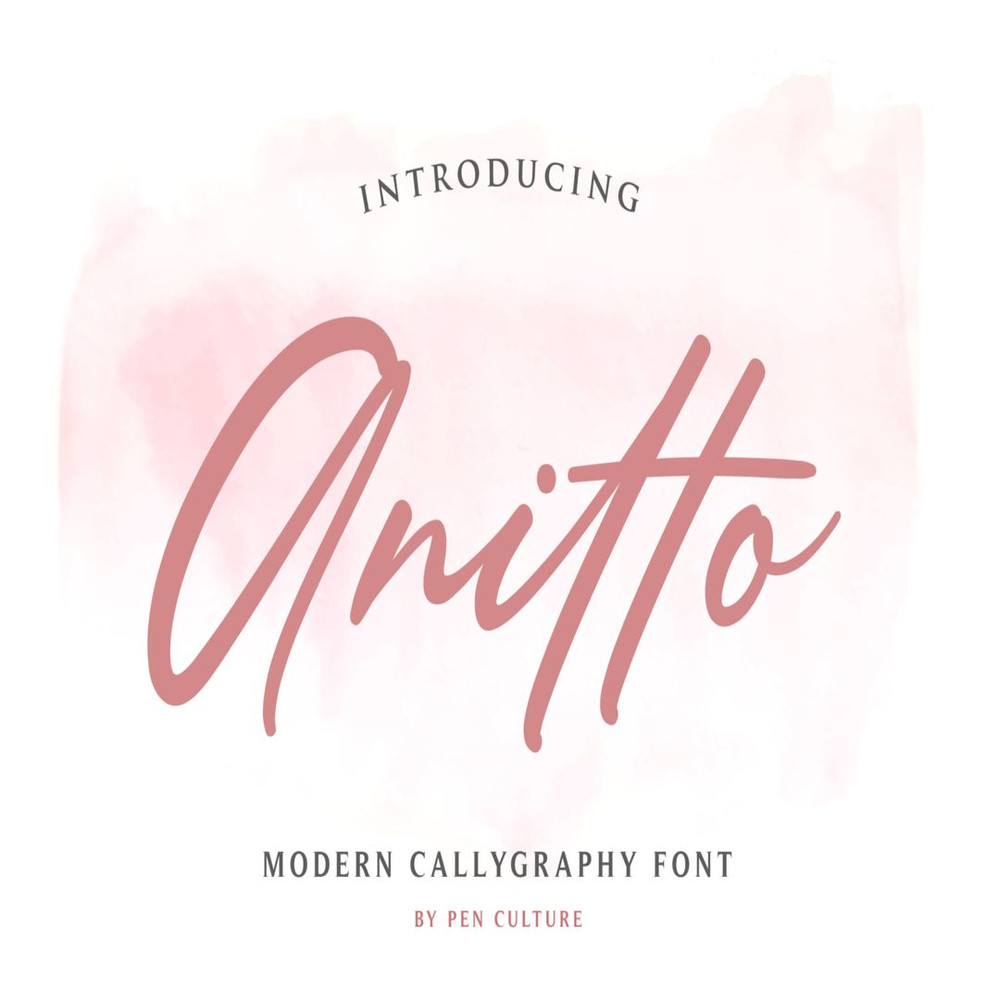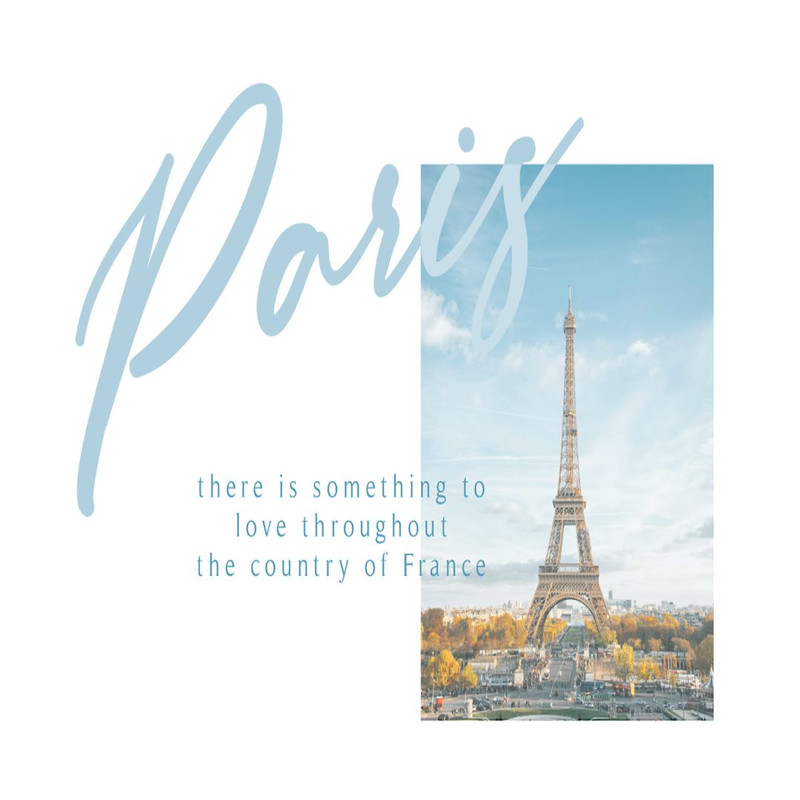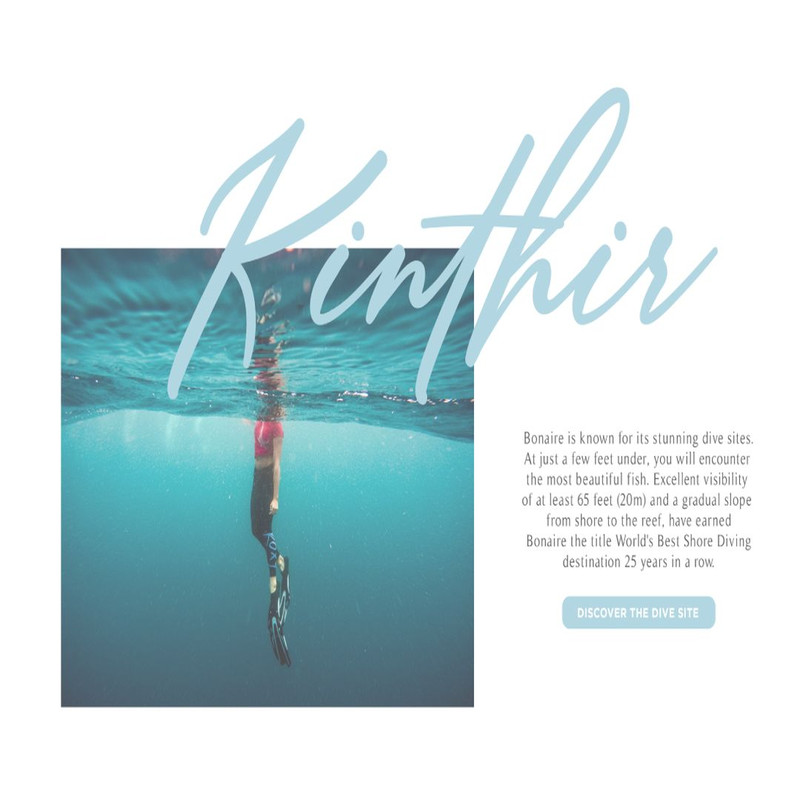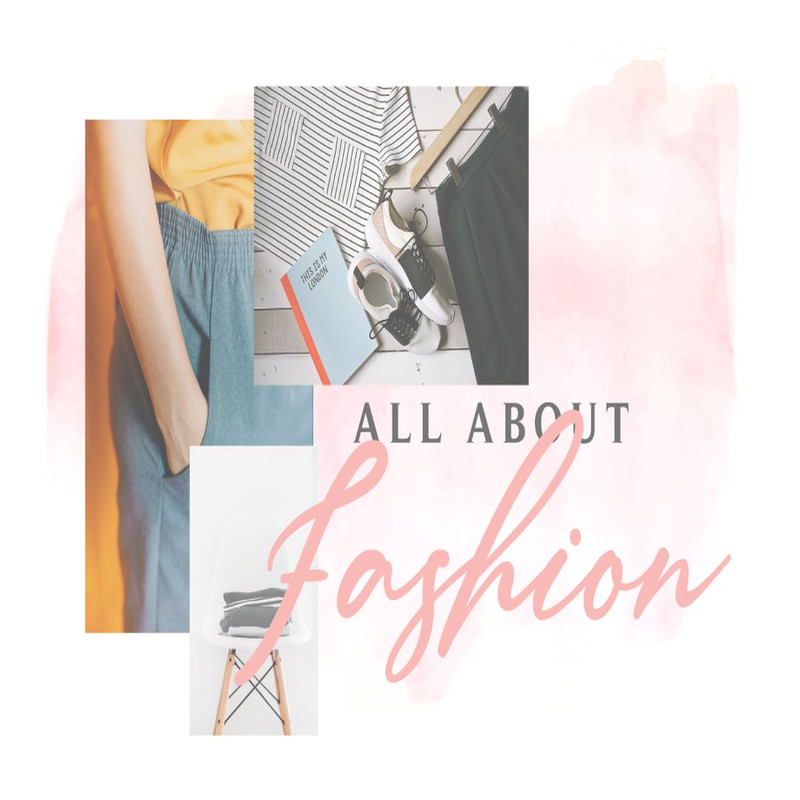
Anitto Calligraphy Font inspired by the beauty of Sunday morning in a village. Anitto Calligraphy Font font has smooth and beautiful curves, so would be perfect for all types
– The Great Sunday includes capital and lowercase letters
– 72 Ligatures
– Punctuation
– Numbers + punctuation
– Foreign language support